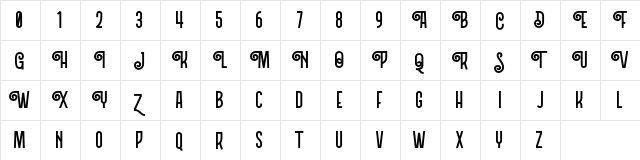
Northern Demo Version Regular
| Foundry | Angin Studio |
| Designer | Angin Studio |
Design Context for Northern Demo Version Typeface
Northern Demo Version takes a measured approach to typography — its balanced proportions and neutral character make it a reliable workhorse for both digital and print work.